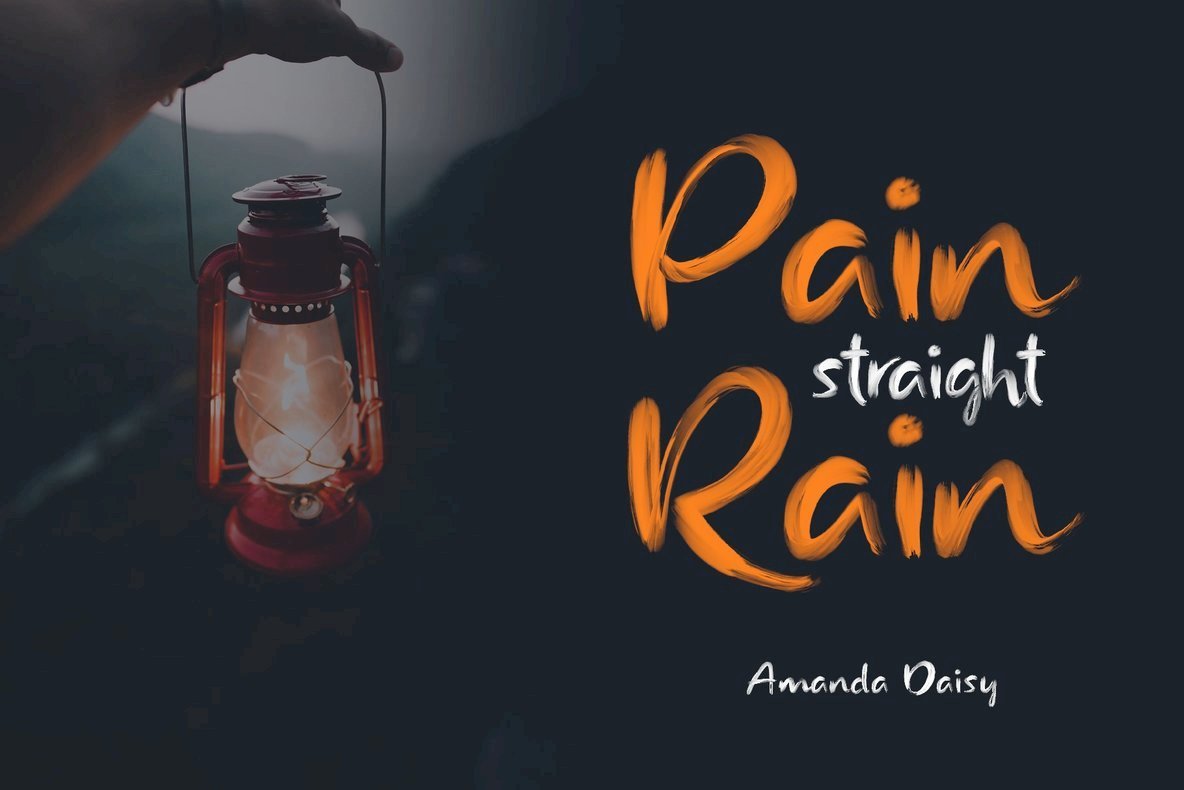
Rainly SVG Brush Font
Rainly is an excellent SVG opentype font designed for display purposes.
Upper Case & Lowercase
Standard Ligatures
Numerals & Punctuations (OpenType Standard)
Accents (Multilingual characters) (note : Rainly SVG not include multilingual) (AÀÁÂÃÄÅCÇDÐEÈÉÊËIÌÍÎÏNÑOØÒÓÔÕÖUÙÜÚÛWYÝŸỲŸÆŒßÞ)